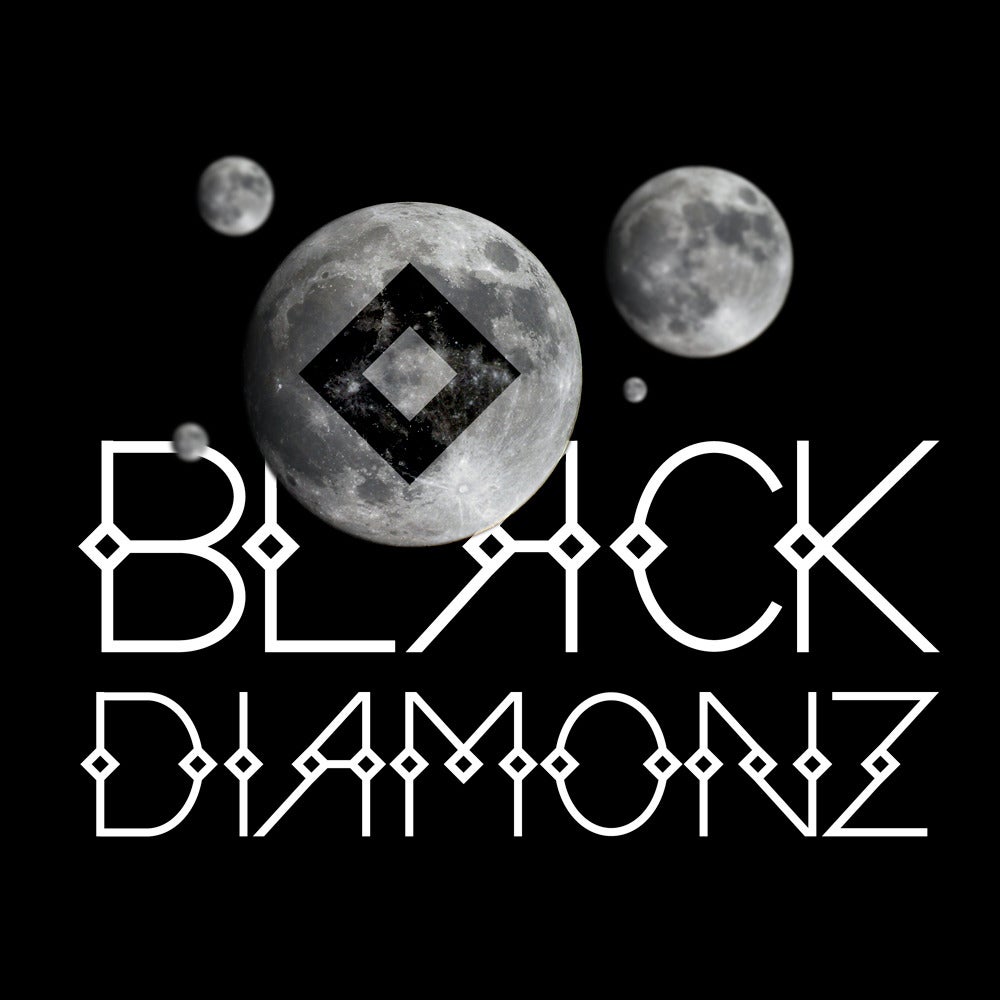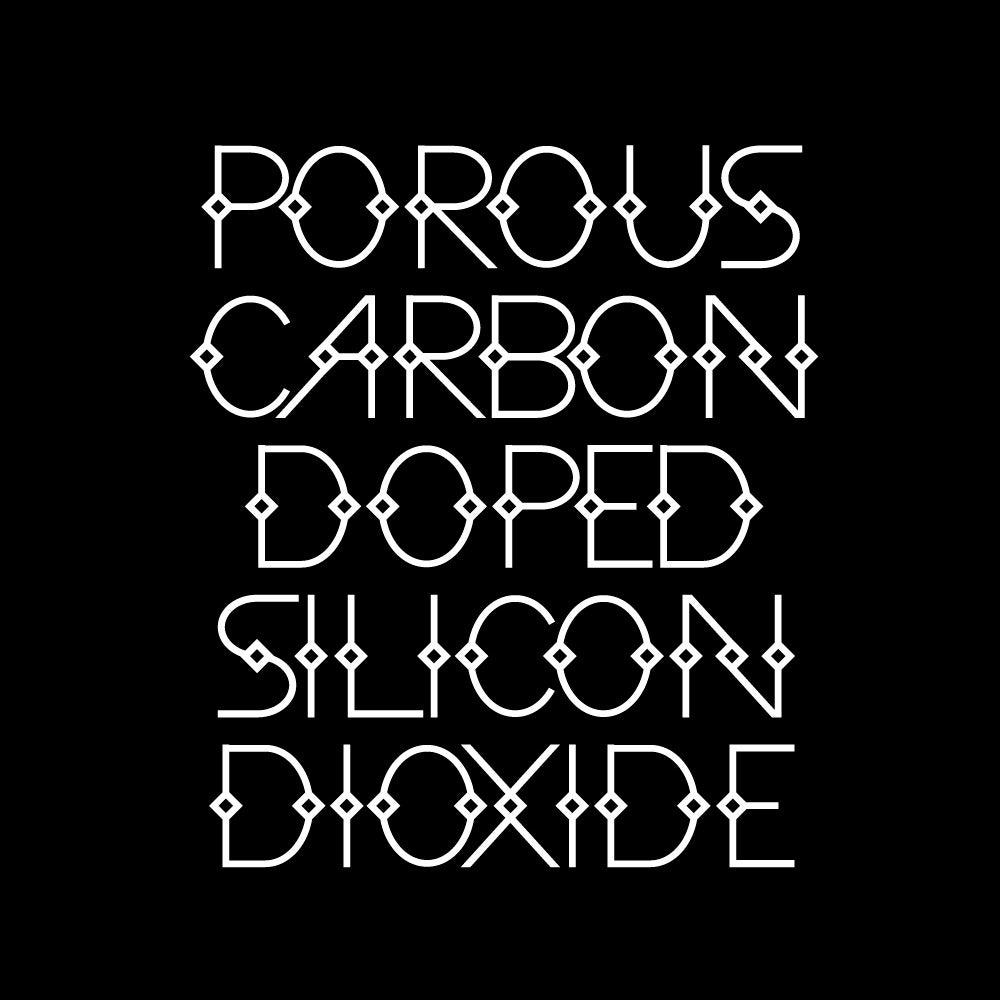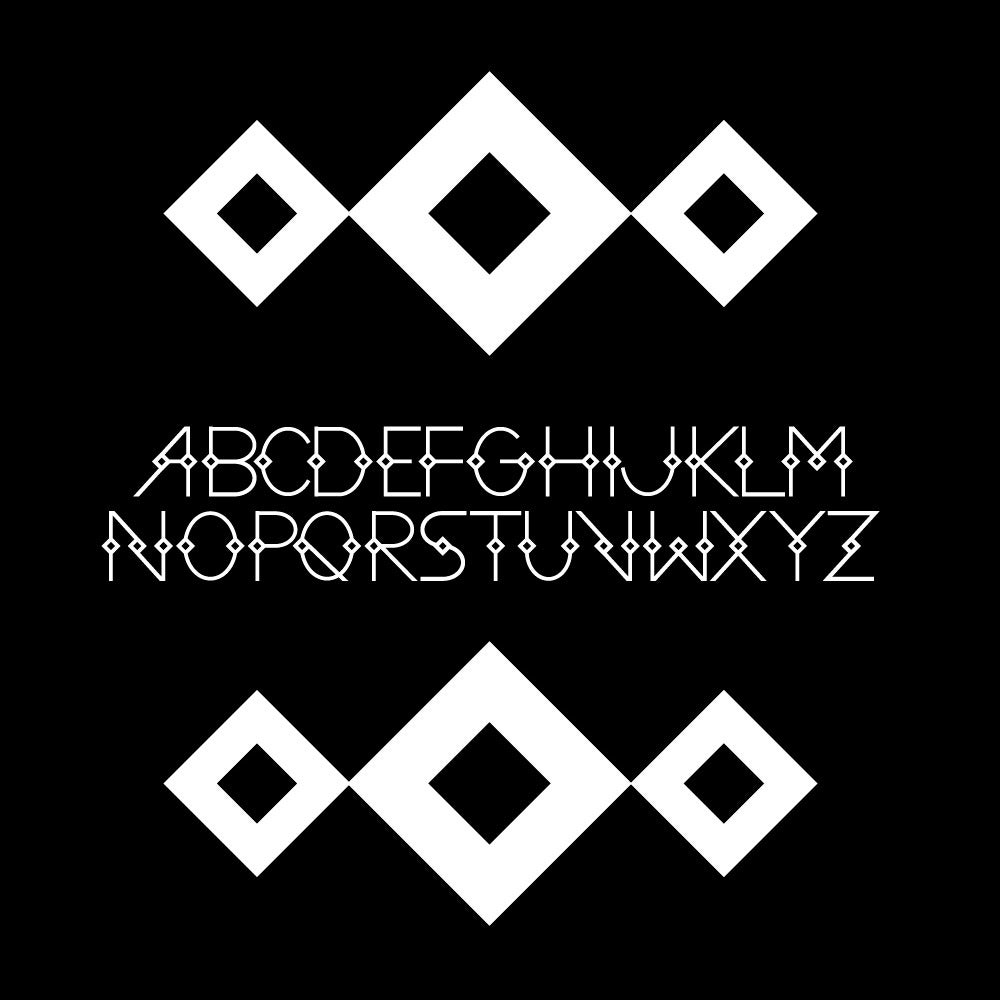
Black Diamonz
Black Diamonz is a caps only, display font. This type design works best in large headlines, and or short blocks of text.
Designer: Luis B Boy